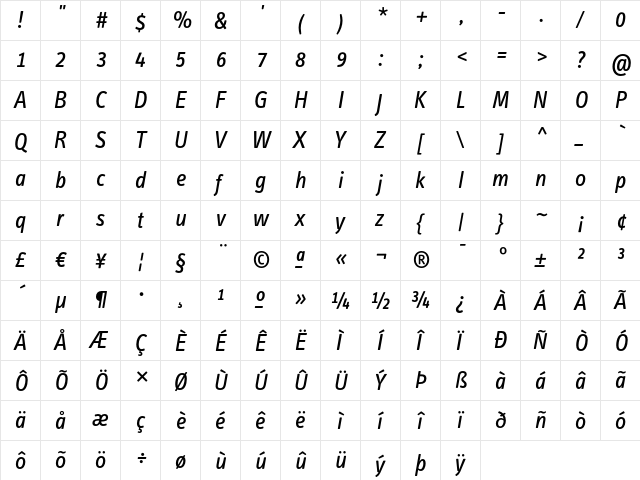
InfoTextBookTf Italic
Design Context for InfoTextBookTf Typeface
InfoTextBookTf takes a measured approach to typography — its balanced proportions and neutral character make it a reliable workhorse for both digital and print work. Its italic angle brings a sense of urgency and motion to the letterforms.
Pro Tip: Try InfoTextBookTf for annotation and caption copy alongside an upright companion — the contrast in angle creates a dynamic but ordered typographic system.